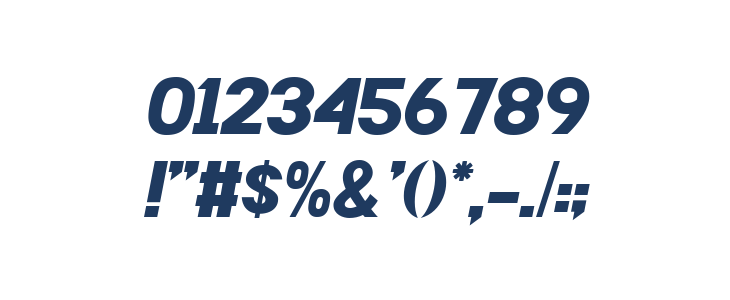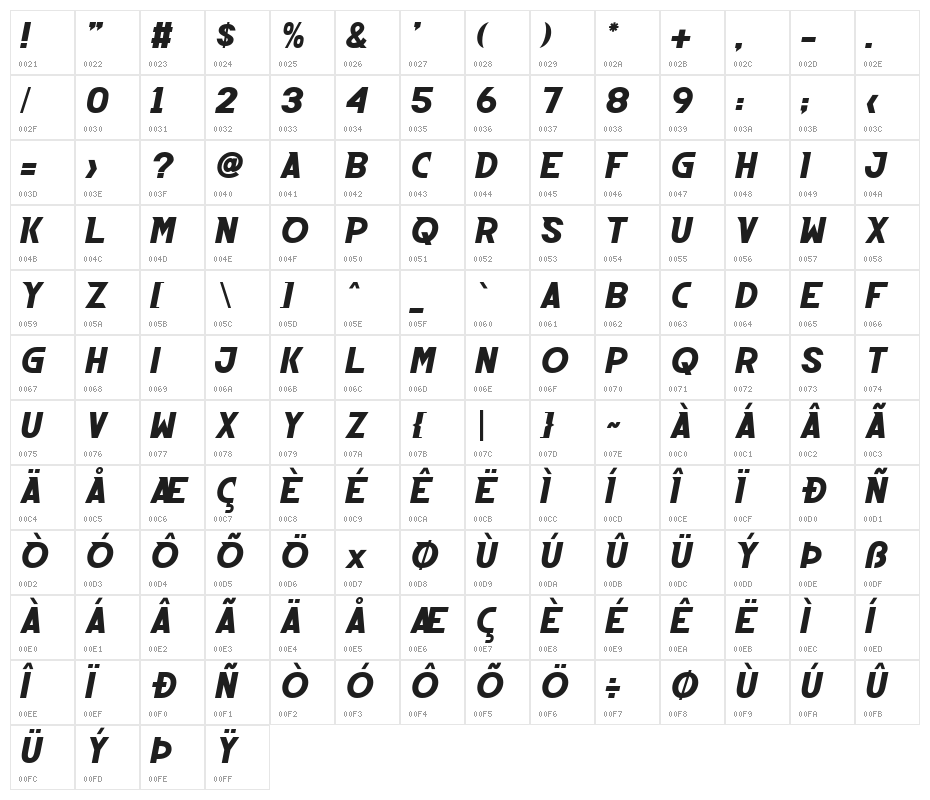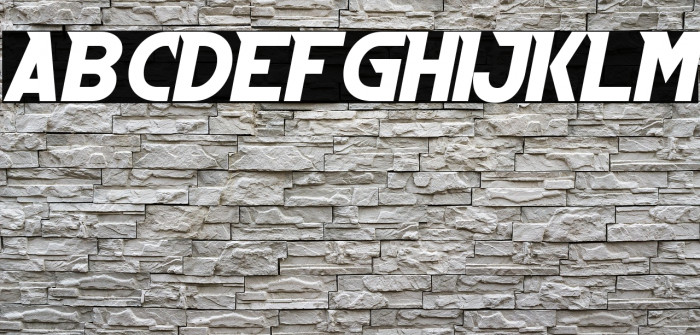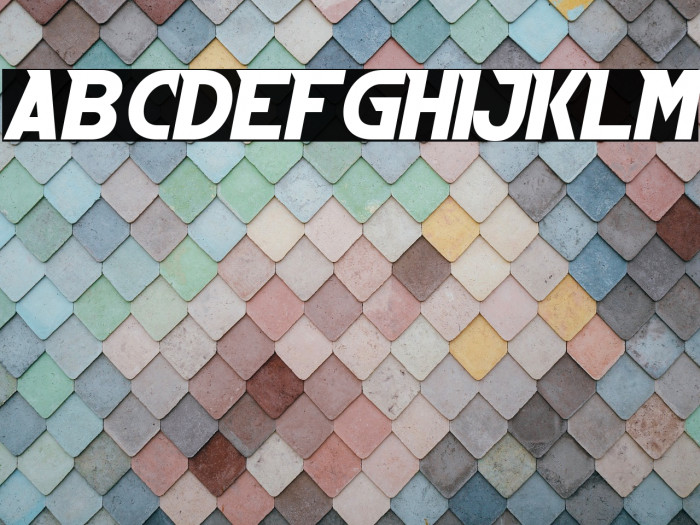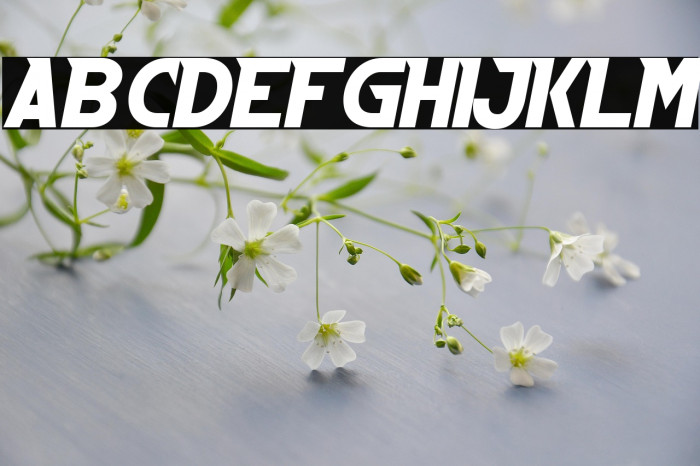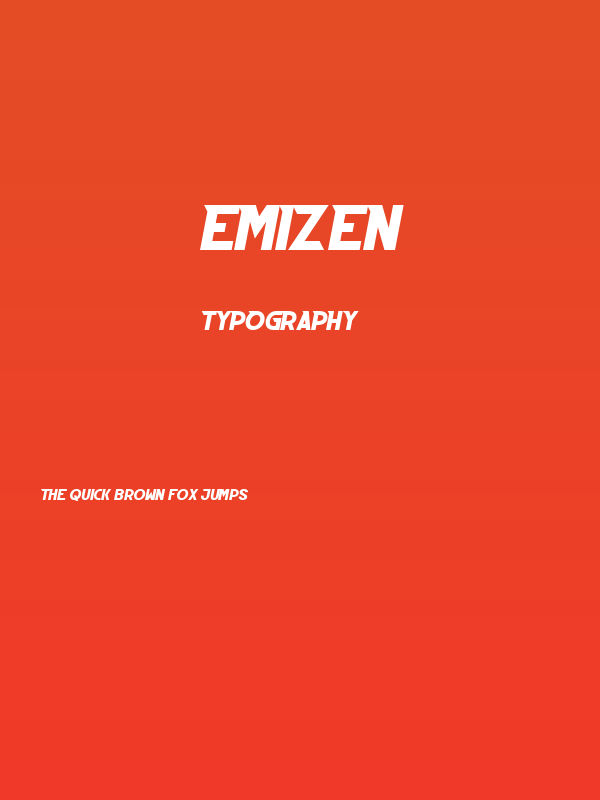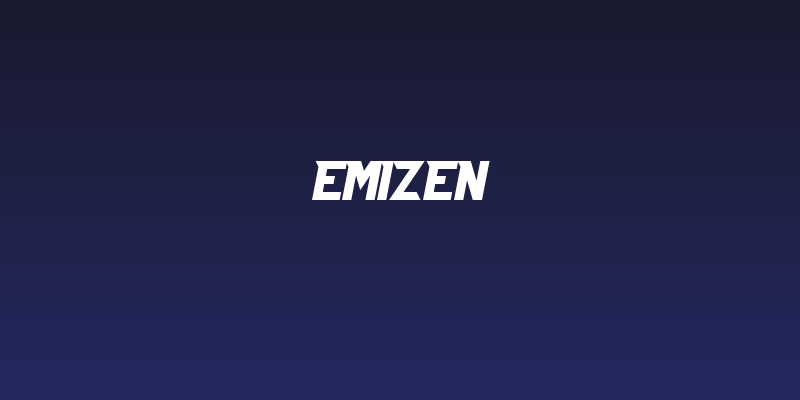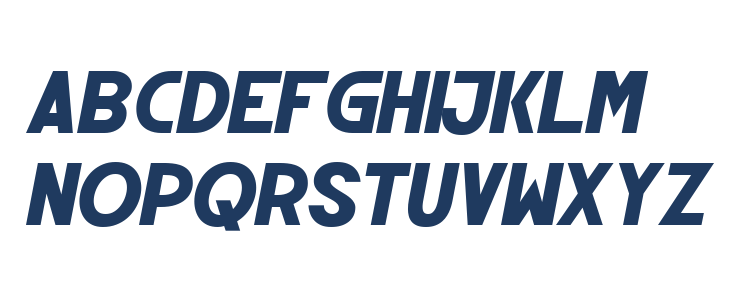
Emizen Font
Emizen Description
This font features a bold and dynamic style with a strong emphasis on angular lines and sharp edges. The characters are slightly italicized, giving them a sense of motion and energy. The uppercase and lowercase letters maintain a consistent weight, contributing to a cohesive and impactful appearance. The numerals are equally bold, ensuring readability and uniformity across different uses. Special characters are designed with the same boldness and angularity, making them stand out effectively. This font is ideal for projects that require a modern and assertive look.
| Proposed Projects | Ideal for branding, advertising, sports team logos, and dynamic headlines. |